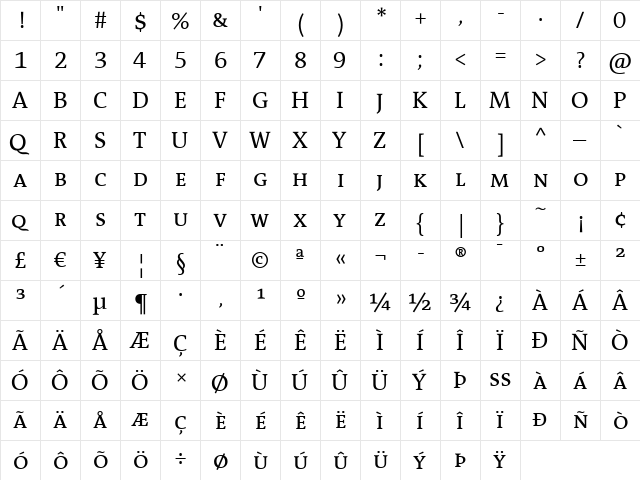
Sun Serif Caps- Regular
Regular · Luc[as] de Groot Exclusive for Sun Microsystems, version  ·
Design Context for Sun Serif Caps- Typeface
Sun Serif Caps- carries the refined structure of traditional serif typography, with bracketed terminals and considered proportions that communicate credibility and craft.